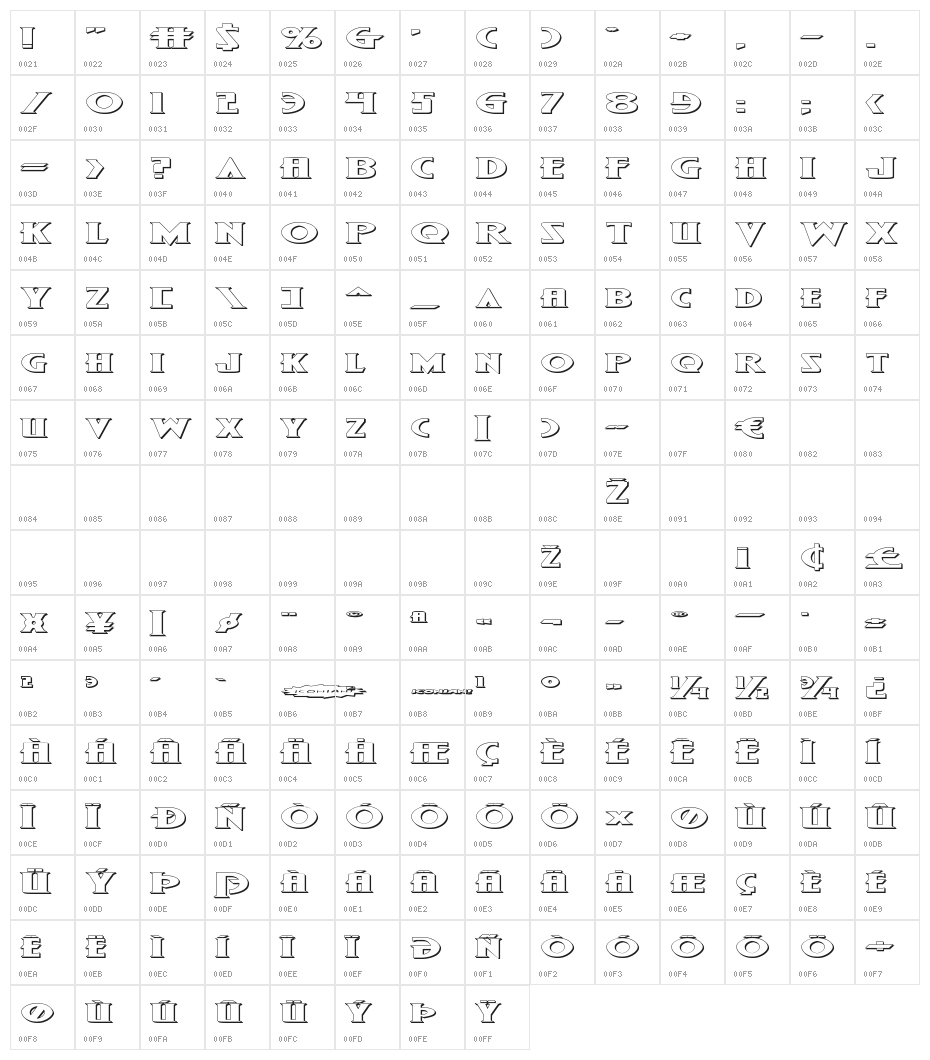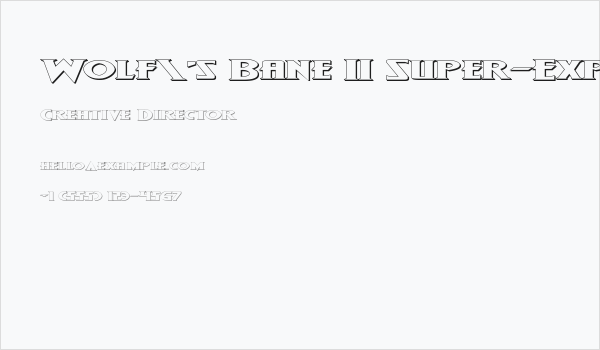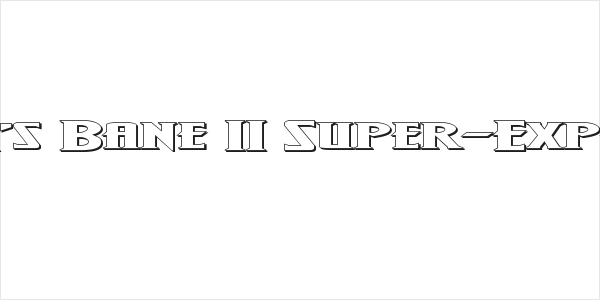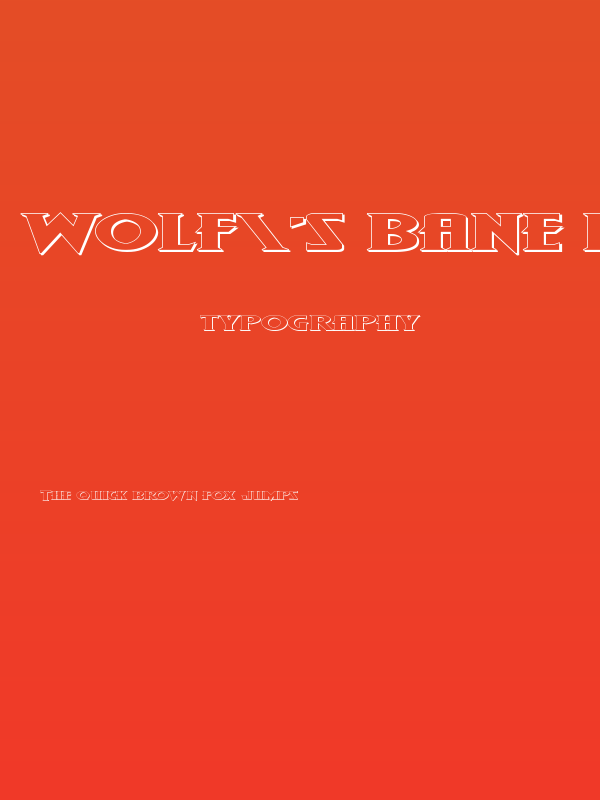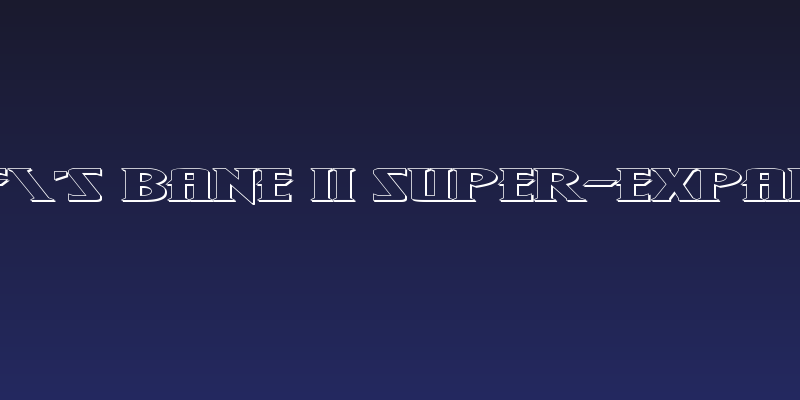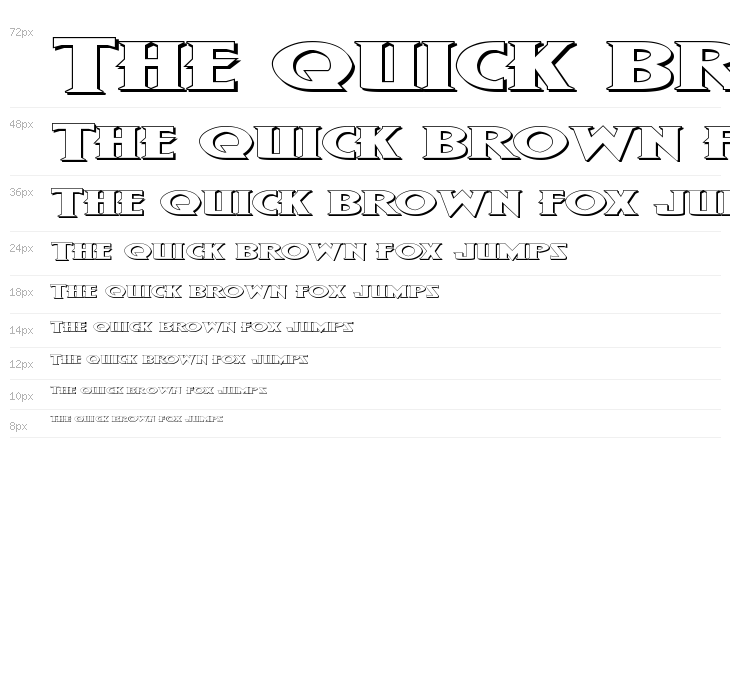
Wolf's Bane II Super-Expand 3D Font
Wolf's Bane II Super-Expand 3D Description
This font features a bold, three-dimensional design with a strong, geometric structure. Each character is outlined, giving it a striking and impactful appearance. The uppercase letters have a uniform height and width, creating a cohesive and balanced look. The numbers and special characters maintain the same bold style, ensuring consistency across all elements. The font's design is reminiscent of vintage or retro styles, with a modern twist that makes it suitable for eye-catching headlines or logos.
| Proposed Projects | Ideal for retro-themed posters, logos, or any project requiring a bold, standout typeface. |